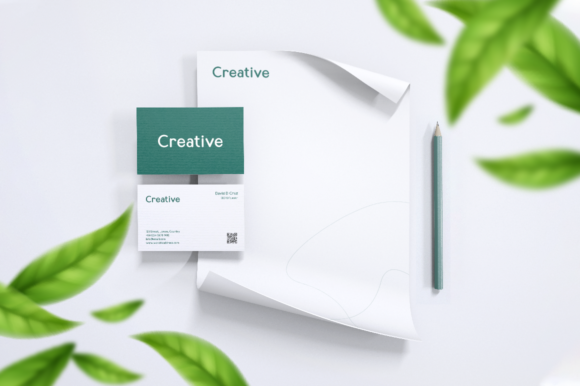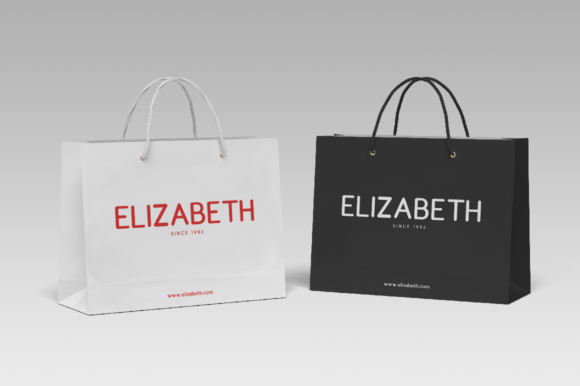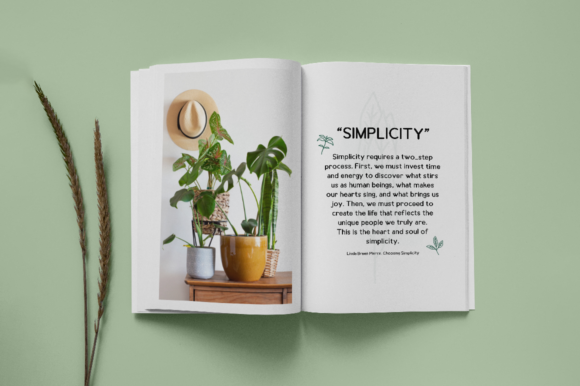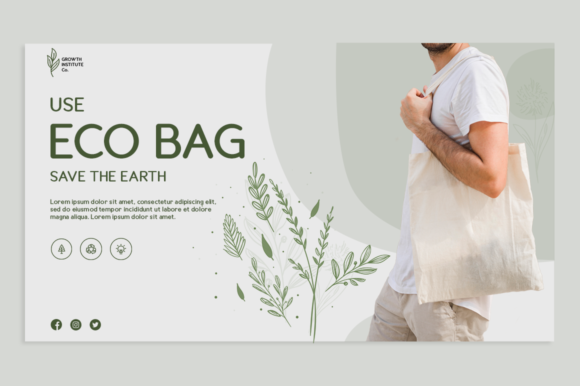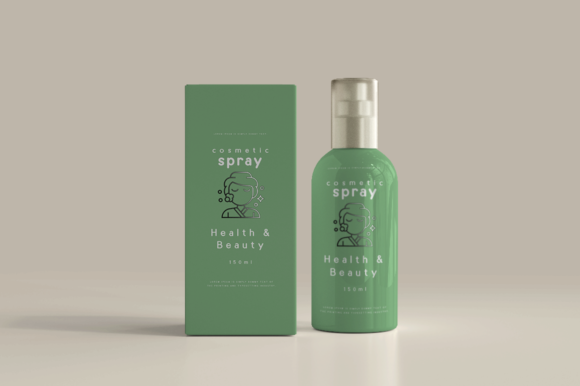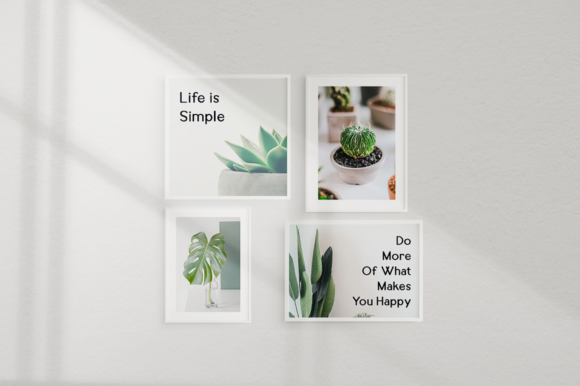
Bastavar Font: Elevate Your Designs with a Minimal and Neat Sans Serif
In the world of typography, fonts play a crucial role in making or breaking a design. A well-chosen font can instantly elevate your project, making it stand out from the crowd. If you’re a designer or crafter looking for a versatile and stylish font to add to your arsenal, look no further than Bastavar Font. This minimal and neat sans serif font is perfect for a wide range of projects, and we’re excited to dive into its features and benefits.
What is Bastavar Font?
Bastavar Font is a modern sans serif font that exudes simplicity and elegance. Its clean lines, subtle curves, and minimalist aesthetic make it an excellent choice for designers seeking a sophisticated look. The font’s versatility is one of its standout features, allowing it to be paired with a vast array of design styles, from modern and edgy to classic and refined.
Key Features of Bastavar Font
- Minimalist Design: Bastavar Font boasts a sleek and uncluttered design, making it perfect for designs that require a clean and contemporary look.
- Sans Serif: The font’s sans serif style ensures that your text remains clear and legible, even at smaller font sizes.
- High Versatility: Bastavar Font can be used in a wide range of projects, from branding and advertising to packaging and digital media.
- Easily Readable: The font’s clear and simple design ensures that your text is easily readable, making it perfect for body text, headings, and titles.
Use Cases for Bastavar Font
Bastavar Font’s versatility makes it suitable for a wide range of design projects. Here are some use cases to get you started:
- Branding and Logo Design: Create a lasting impression with Bastavar Font, perfect for logos, business cards, and brand guidelines.
- Digital Media: Use Bastavar Font in your website designs, social media graphics, and digital advertising to create a cohesive and modern look.
- Packaging Design: Add a touch of sophistication to your product packaging with Bastavar Font, suitable for labels, tags, and packaging materials.
- Print Materials: Bastavar Font is perfect for print materials such as brochures, flyers, posters, and magazines.
Why Choose Bastavar Font?
With so many fonts available, why choose Bastavar Font? Here are a few compelling reasons:
- Unique and Modern Design: Bastavar Font offers a fresh and modern take on traditional sans serif fonts.
- Easy to Read and Understand: The font’s clear design ensures that your text is easily readable, reducing eye strain and improving comprehension.
- Highly Versatile: Bastavar Font can be used in a wide range of design projects, making it an excellent addition to your font library.
In conclusion, Bastavar Font is an exceptional choice for designers and crafters seeking a minimal and neat sans serif font. Its versatility, readability, and modern design make it perfect for a wide range of projects. Whether you’re working on branding, digital media, packaging, or print materials, Bastavar Font is sure to elevate your designs and make them stand out. So why wait? Add Bastavar Font to your creative arsenal and experience the difference for yourself.